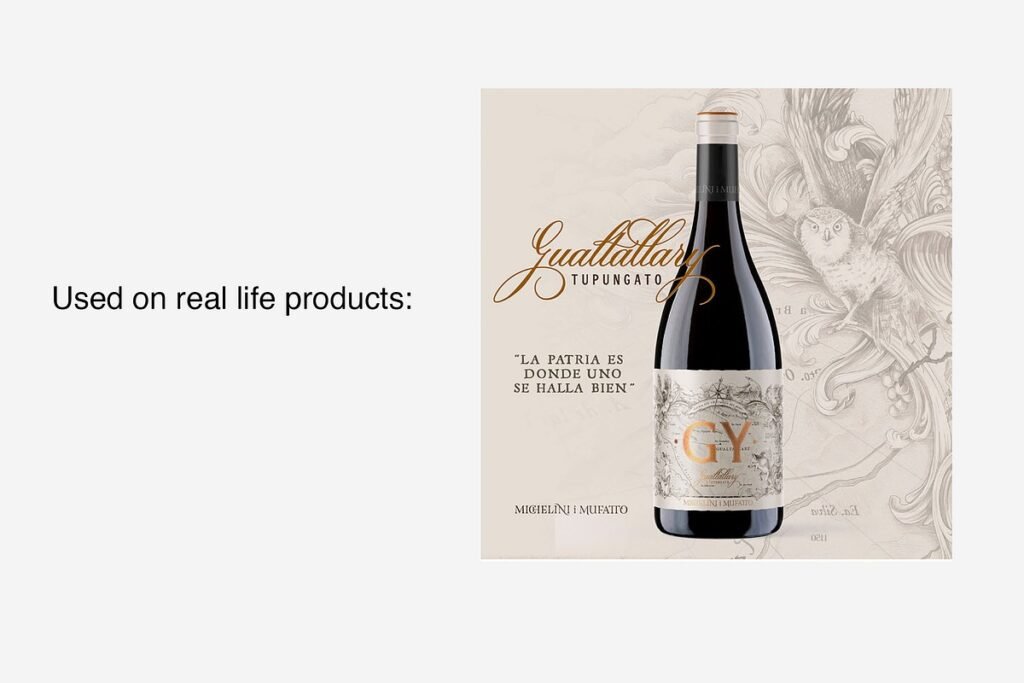
Bodega Script Elegant Wedding Font features a rich set of ligatures and numerous stylistic alternates, making it ideal for sophisticated branding, vintage logos, wine and food packaging, fashion labels, and premium stationery.
Blends classic calligraphic forms with a modern touch, offering both elegance and versatility for high-end design projects.Saturide Script Inspired by Modern Vintage & Retro styles and a combination with old American traditional style.
Saturide Script allows you to create handwritten letters instantly and very practical. Ideal for logos, handwritten quotes, product packaging, headers, posters, merchandise, social media & greeting cards.